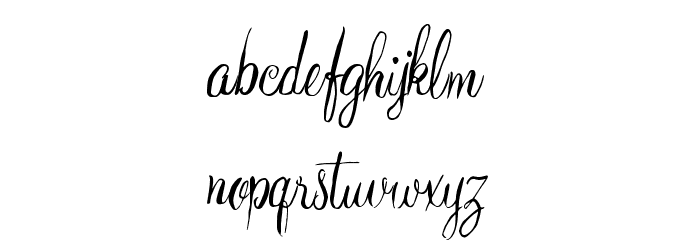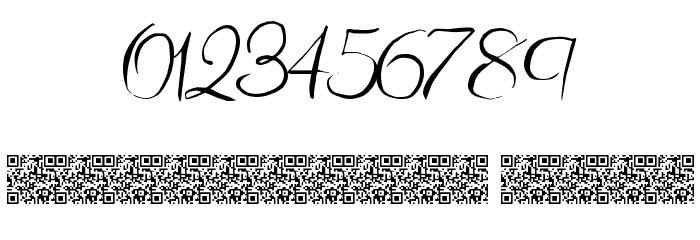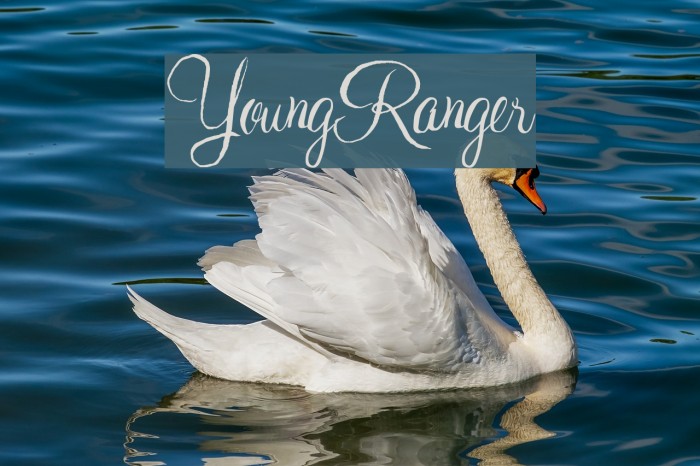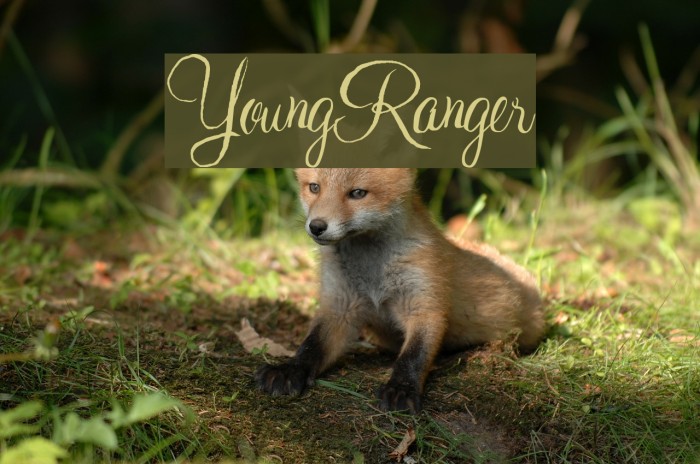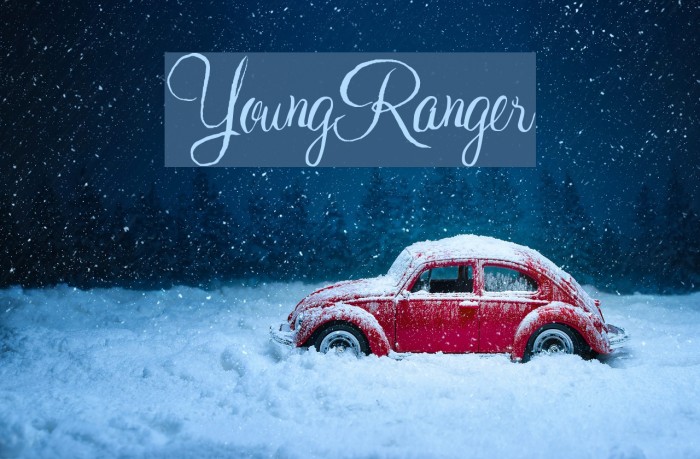
YoungRanger Font
This font features an elegant and flowing script style, characterized by its intricate and decorative letterforms. The uppercase letters are particularly ornate, with sweeping curves and flourishes that give a sense of movement and sophistication. The lowercase letters maintain a consistent style, offering a more subtle yet equally graceful appearance. The numerals are designed to match the overall aesthetic, with a touch of flair that complements the alphabet. This font's unique style is ideal for projects that require a touch of elegance and artistic expression.
An elegant and flowing script font with ornate and decorative letterforms.
- Proposed Projects: Ideal for wedding invitations, elegant branding, artistic posters, and decorative headings.
- Use Case: Headlines, Logos, Invitations